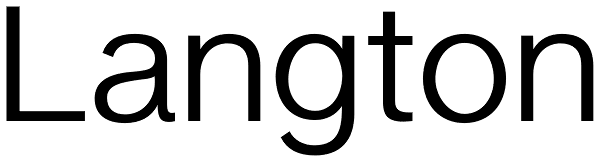
Langton
Langton is an attractive workaday sans-serif with the emphasis on a variety of lighter weights, with 10 weights in total. This choice is especially useful when a subtle weight change can make a huge presentational difference. The weights in Langton...